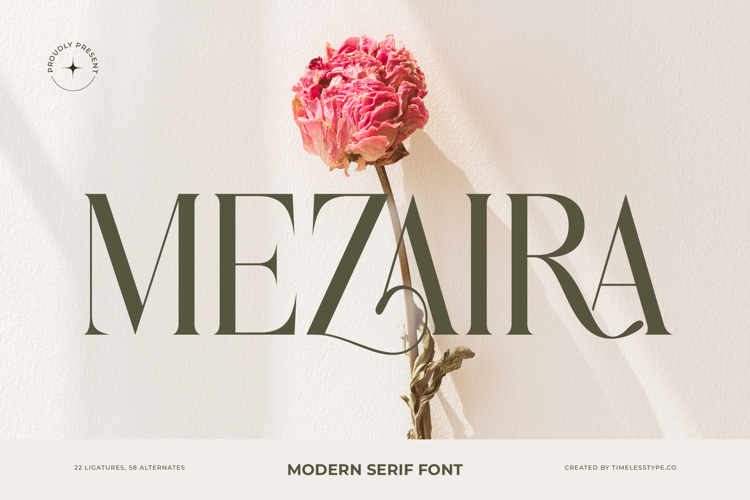
Mezaira - Modern Serif Font
Elevate your designs with unparalleled elegance using Font Mezaira - Modern Serif Font Serif Display. This exquisite display typeface captivates with its striking high-contrast strokes and finely crafted, delicate serifs, embodying a truly modern sophistication. Its unique blend of classic structure and contemporary flair ensures your message is delivered with undeniable impact and timeless appeal.
Discover a spectrum of creative possibilities with Font Mezaira - Modern Serif Font Serif Display's comprehensive character set. Featuring an impressive 22 ligatures and 58 alternates, this font provides exceptional expressive typographic control. These advanced OpenType features allow designers to craft truly unique visual identities, adding a bespoke touch to headlines, logos, and display text that resonates with discerning audiences.
Expand your global reach effortlessly with this exceptional typeface. With its extensive multilingual support, Font Mezaira - Modern Serif Font Serif Display adapts seamlessly across global markets, making it incredibly versatile for international projects. This ensures your brand maintains a consistent, professional standard, regardless of language or region.
Perfectly suited for projects demanding distinction, Font Mezaira - Modern Serif Font Serif Display is ideal for luxury branding, high-end packaging, and captivating editorial design. It's the ultimate choice for fashion magazines, wedding invitations, and upscale digital media, where conveying prestige and refinement is paramount. Make it your go-to asset for creating truly memorable impressions.